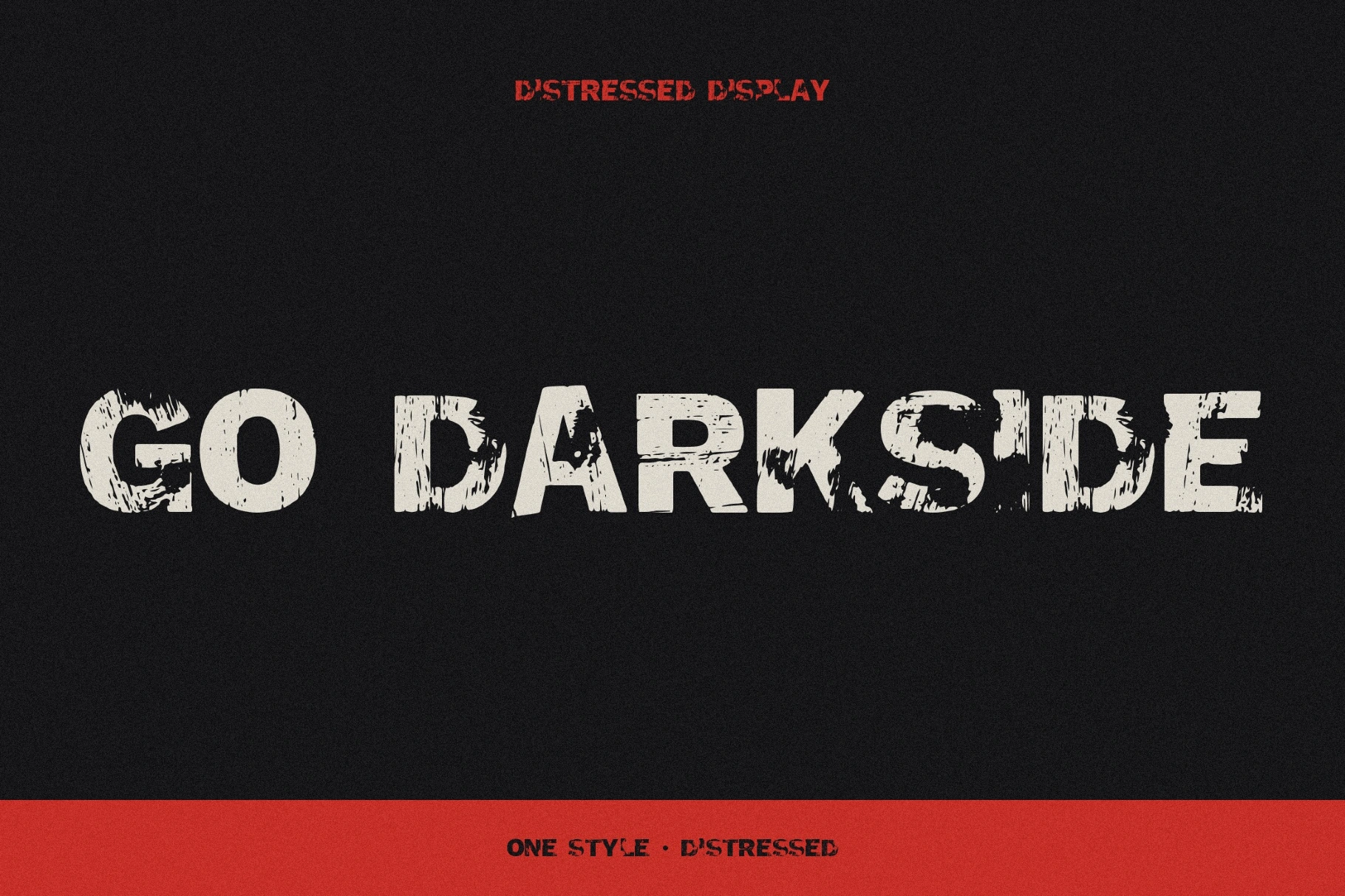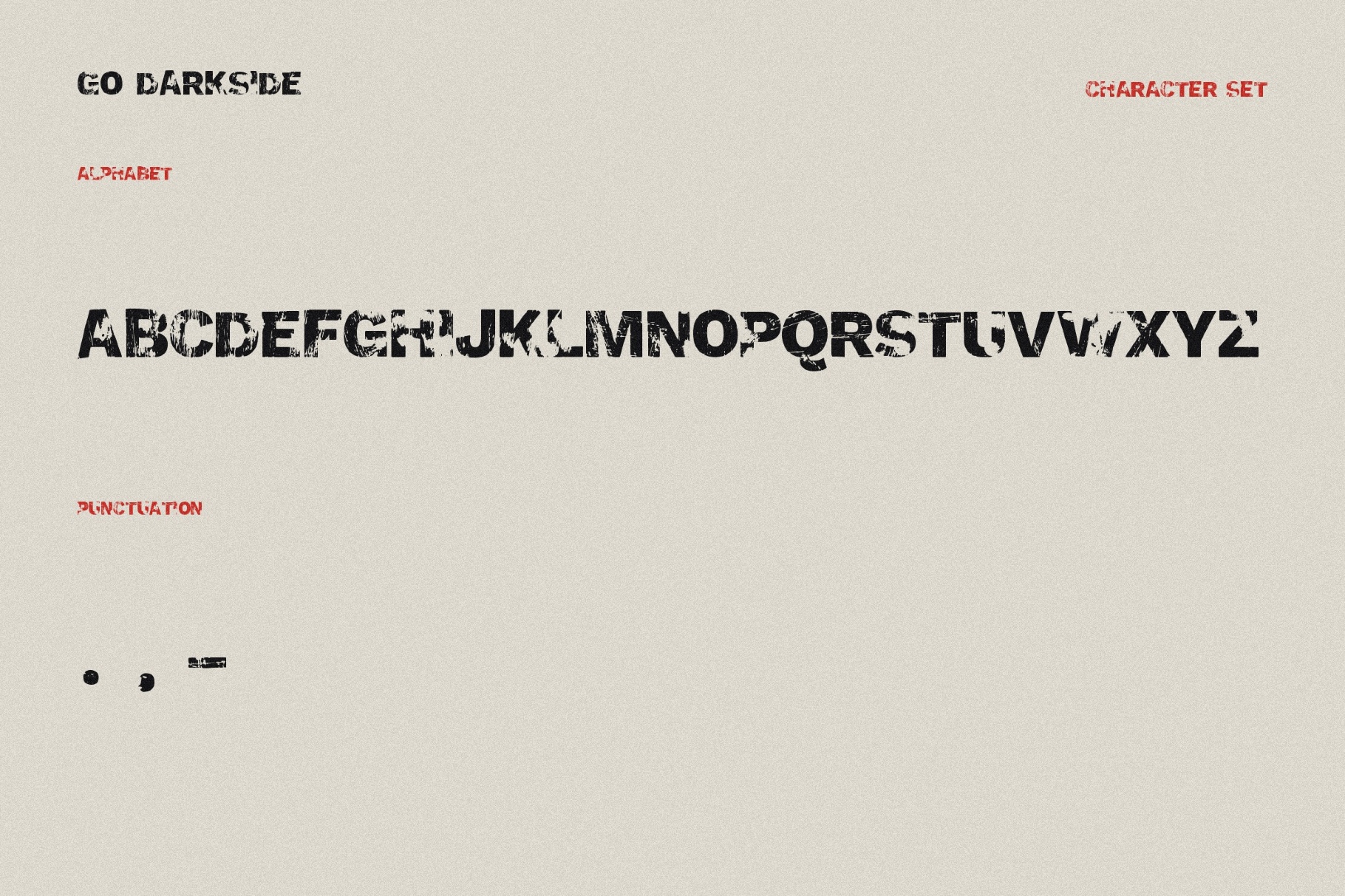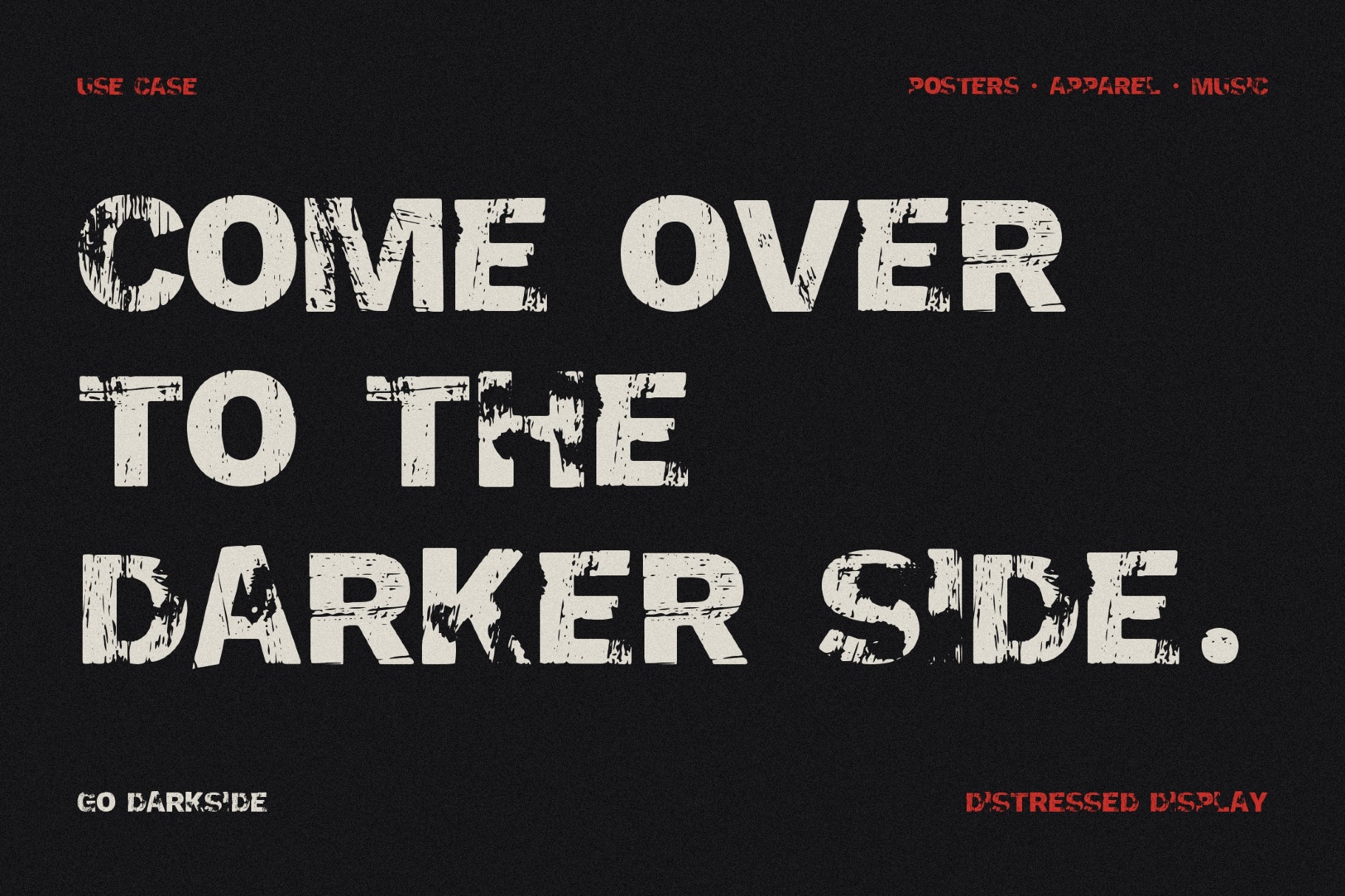
GO Darkside - Grunge Punk Font
GO Darkside is a grunge punk font with heavy industrial cuts, scraped ink, and the abrasive mood of skate stickers and underground graphics. It's dark, loud, and deliberately rough suits streetwear logos, band posters, extreme sports branding, tattoo-shop visuals, album covers, product labels, and bold social media.
- uppercase letters A–Z;
- basic punctuation;